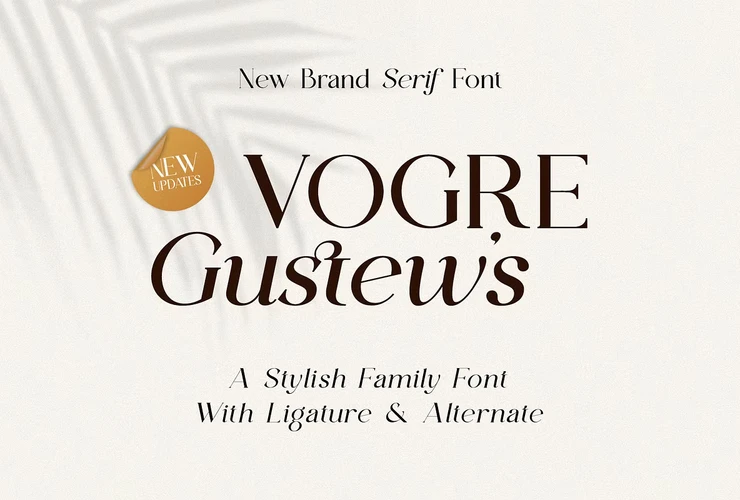
Vogre Gustews: The Ultimate Serif Font Family for Modern and Elegant Designs
Vogre Gustews is a refined serif typeface that combines stylish elegance with modern versatility. Perfectly suited for a wide range of design projects, this serif family includes seven regular fonts and seven italic fonts, ranging from thin to bold. Whether you’re crafting titles, logos, branding materials, or magazine layouts, Vogre Gustews adds a touch of sophistication and class to your work.
Key Features of Vogre Gustews
Comprehensive Font Family: The Vogre Gustews family offers a diverse range of font weights and styles, including Thin, Extra Light, Light, Regular, Medium, Semi Bold, and Bold, with matching italics for each. This versatility makes it an ideal choice for both minimalist and bold design approaches.
Elegant Design with Clean Lines: The font’s sleek curves and smooth transitions give your designs a polished, professional look. Each character has been carefully crafted to maintain balance and legibility while exuding style.
Ligatures and Multilingual Support: Enhance your typography with stylish ligatures and a broad range of supported languages. This ensures that Vogre Gustews is suitable for global design projects without compromising on quality or aesthetic appeal.
Ideal Use Cases for Vogre Gustews
Branding & Logos: The elegant yet modern feel of Vogre Gustews makes it a great choice for creating memorable brand identities and logos.
Magazine & Editorial Design: Its versatility across different font weights and styles is perfect for crafting visually engaging magazine layouts and editorial content.
Product Packaging & Invitations: Add a refined touch to packaging designs, invitations, and other printed materials with this font’s smooth lines and stylish curves.
Web & Digital Design: Vogre Gustews adapts beautifully across digital platforms, making it an excellent choice for website headers, social media posts, and digital branding.
Why Choose Vogre Gustews?
Vogre Gustews is more than just a font—it’s a versatile design tool that can elevate your projects with a blend of modern aesthetics and timeless elegance. From minimalist layouts to bold statements, this serif family adapts to your creative vision effortlessly.